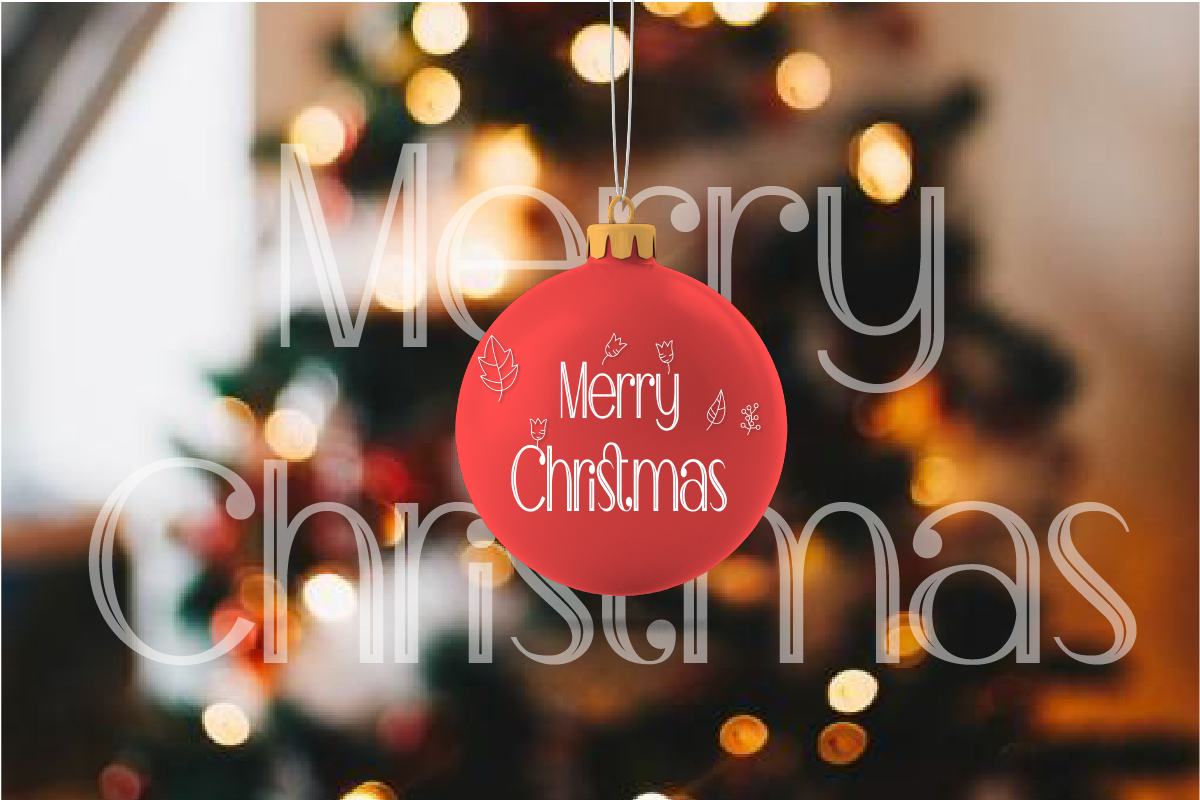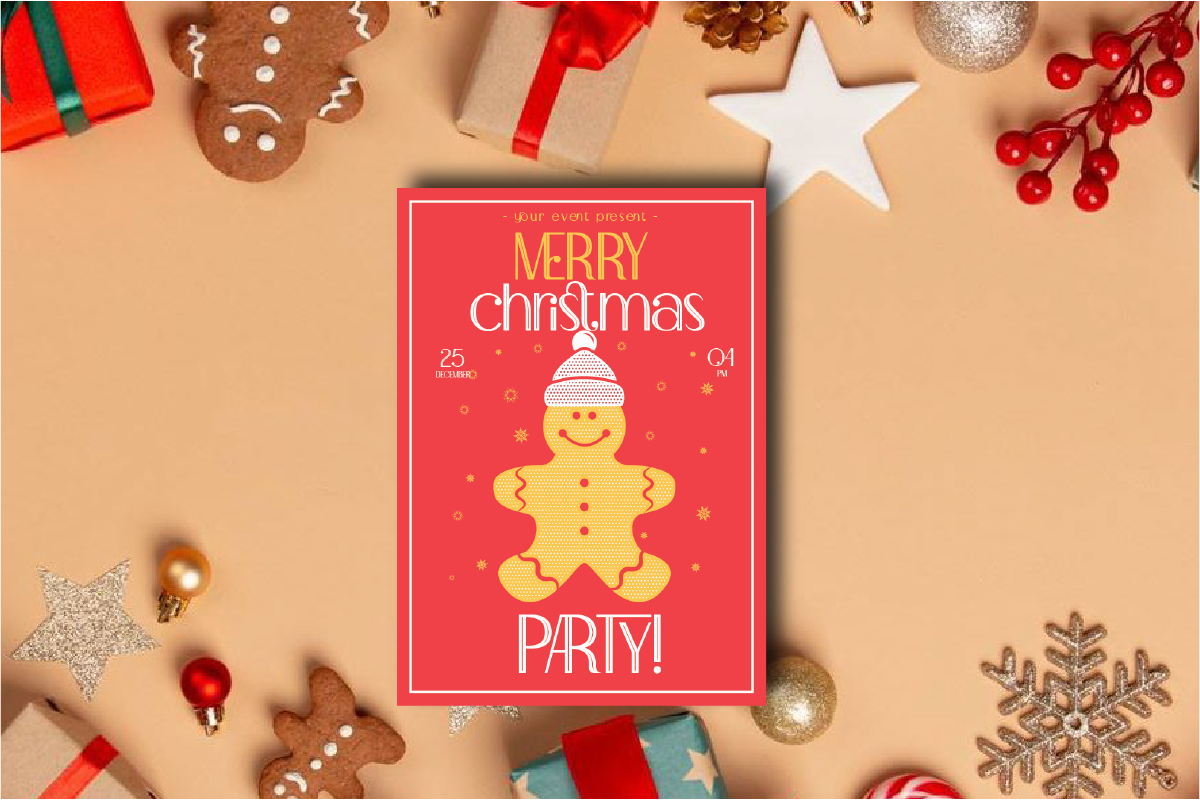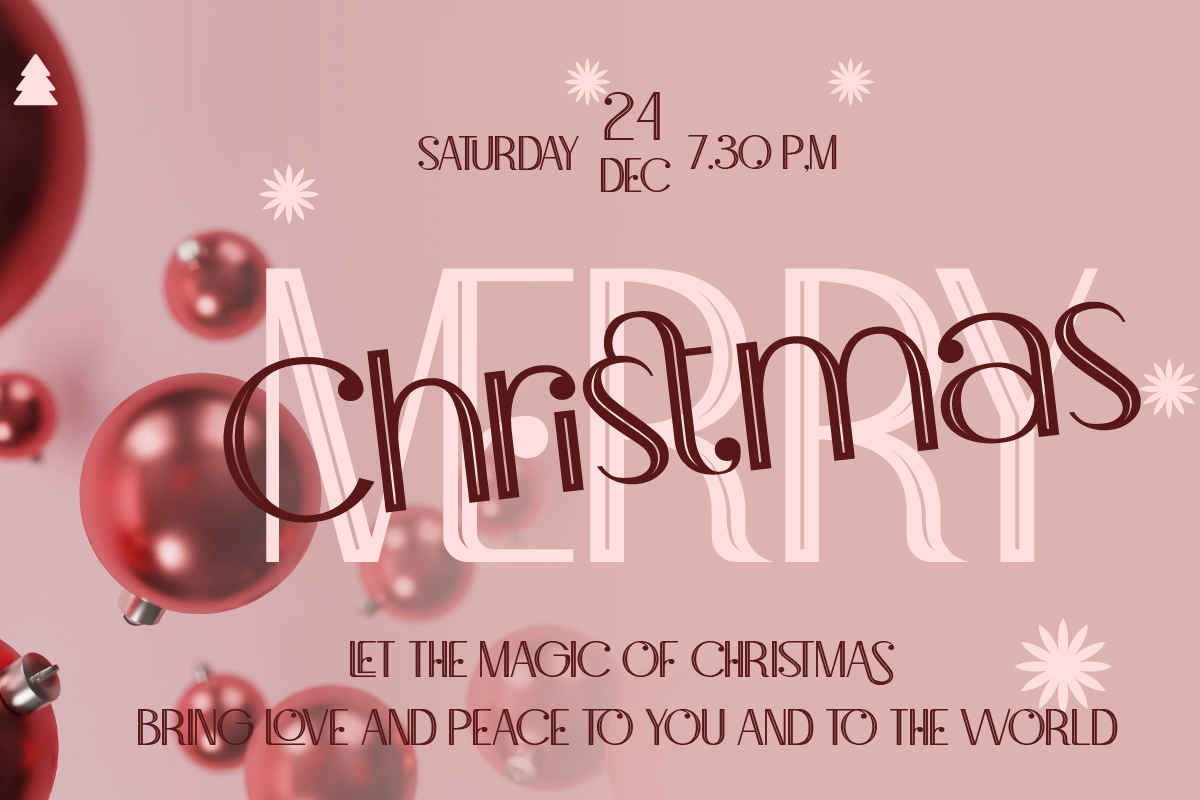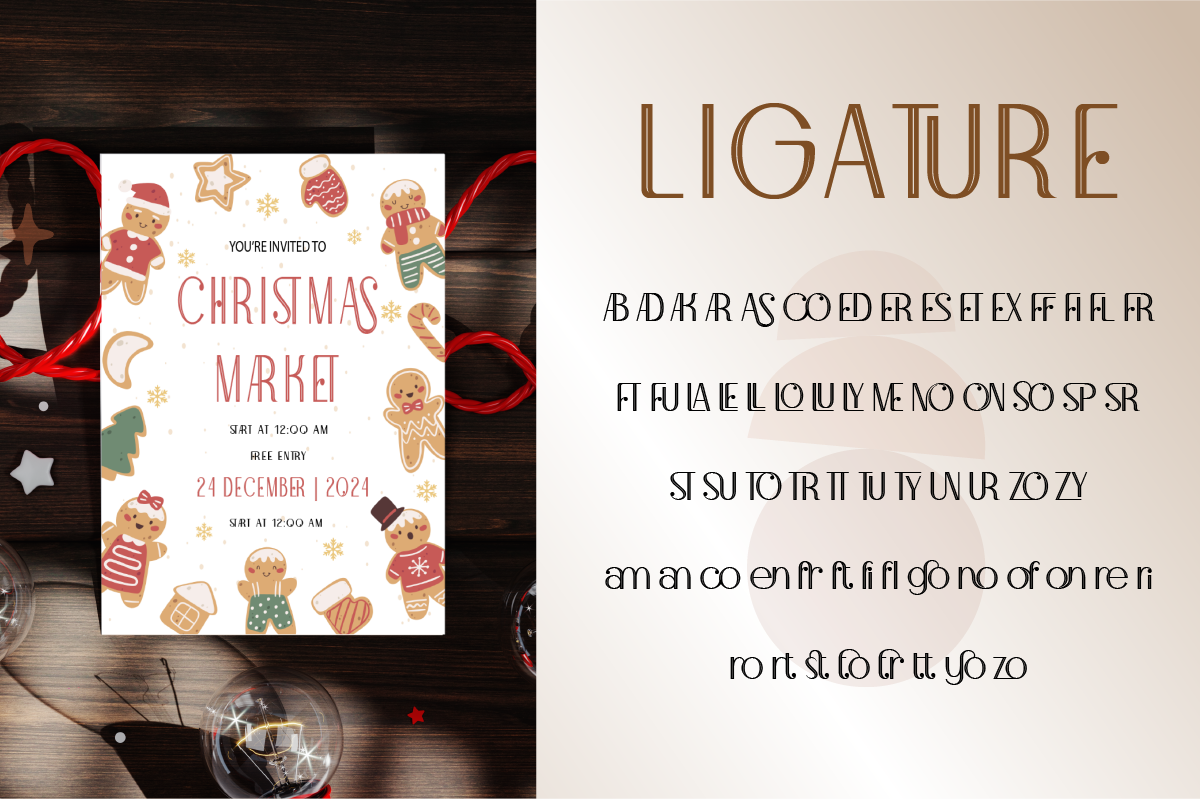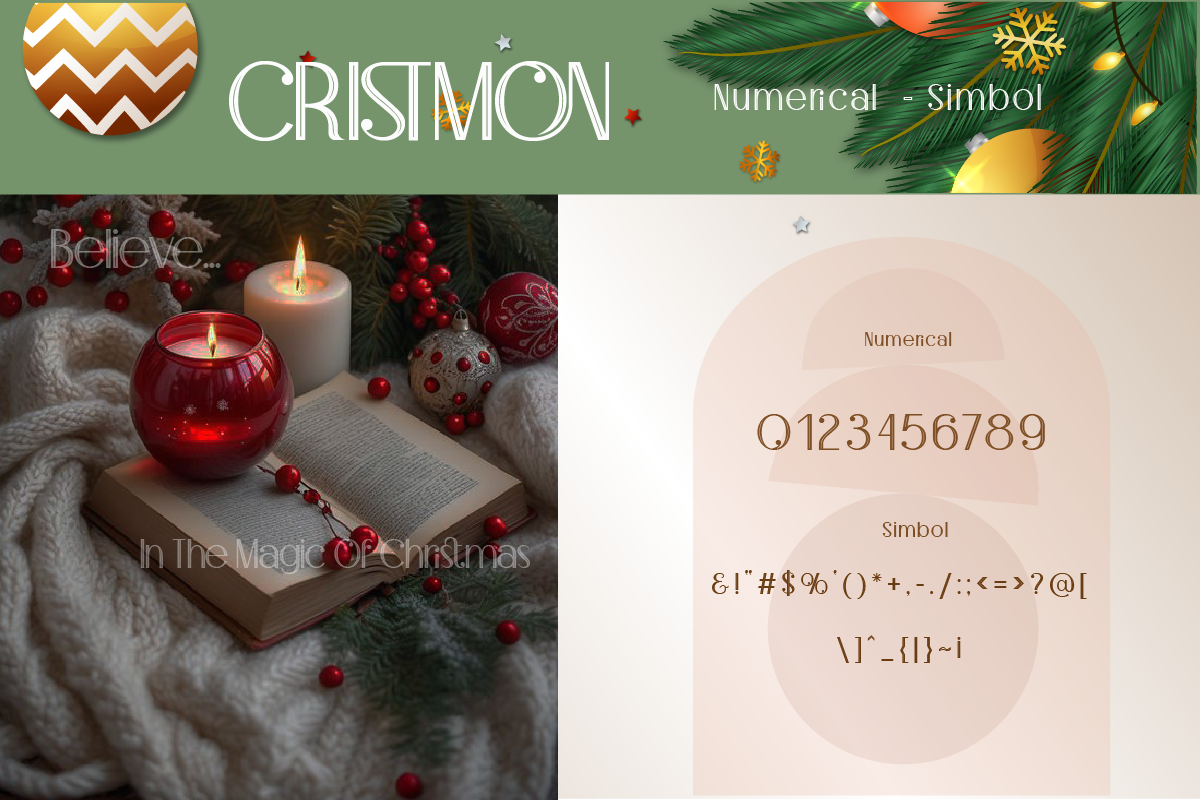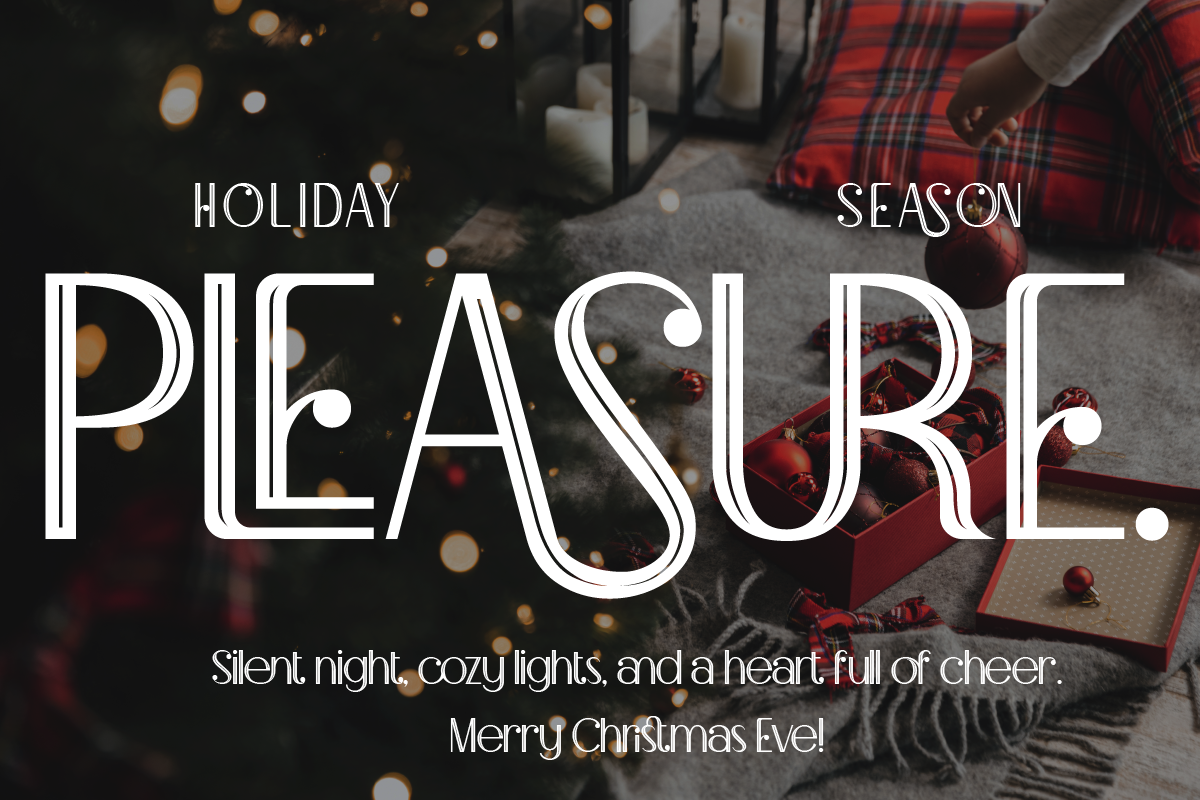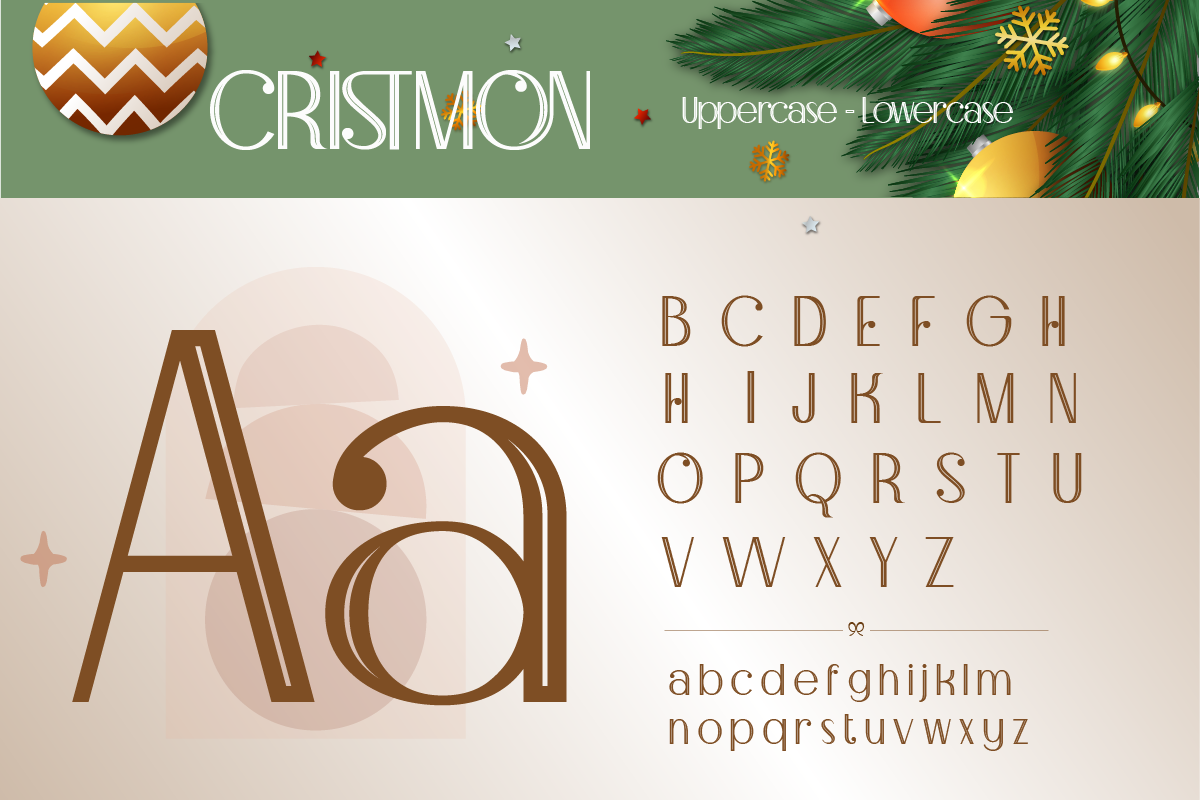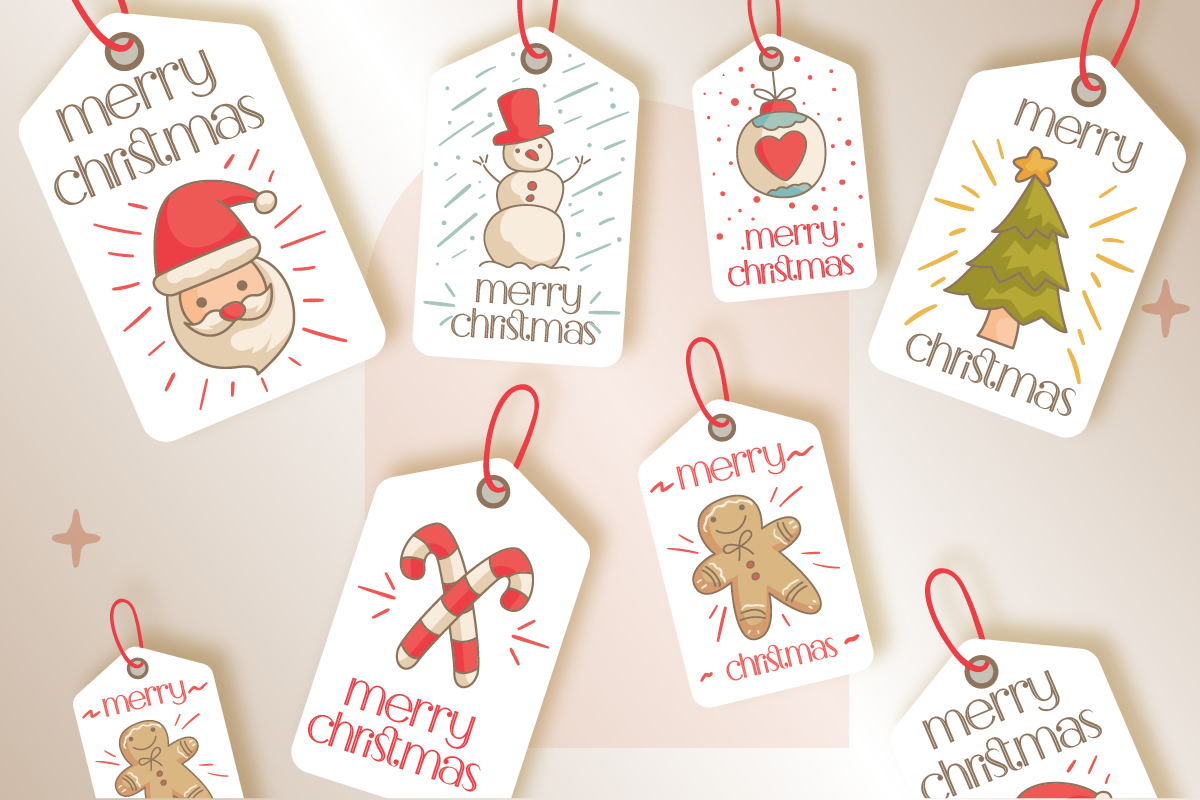
Cristmon
Ho..ho..ho.. bring the spirit of Christmas to life with Cristmon! This font also looks very cheerful, playful, simple, and modern. Whether you're designing holiday cards, gift tags, or social media posts, this font will add that extra attention and stand out to your creations. A unique type that can be used for branding, posters, invitations, greeting cards and product tags.
- A - Z set (Uppercase & Lowercase)